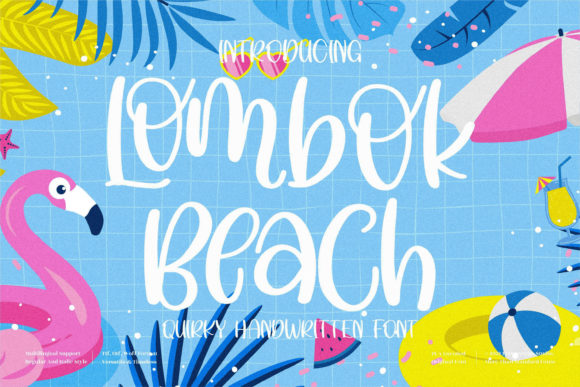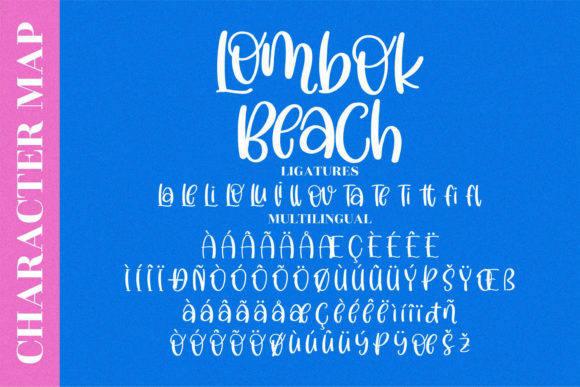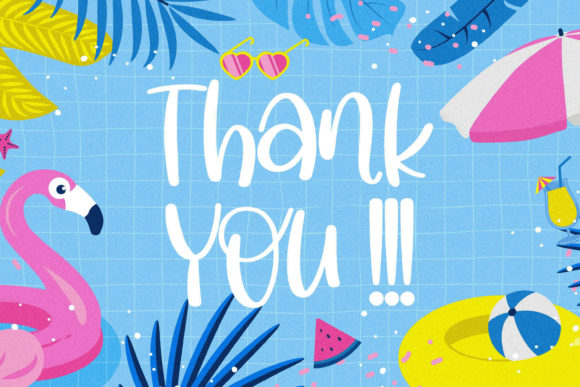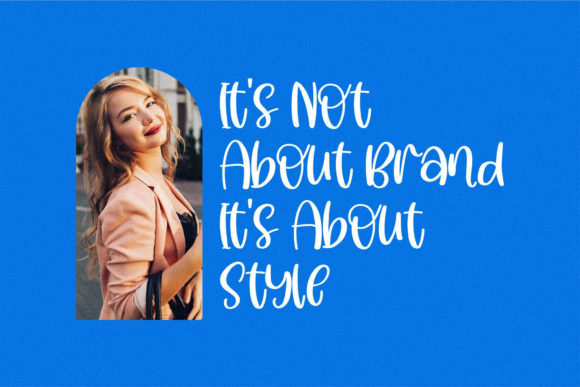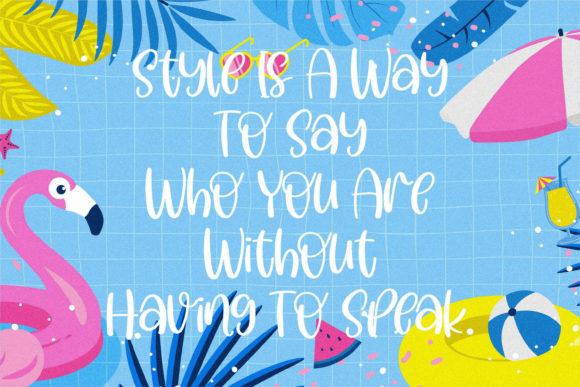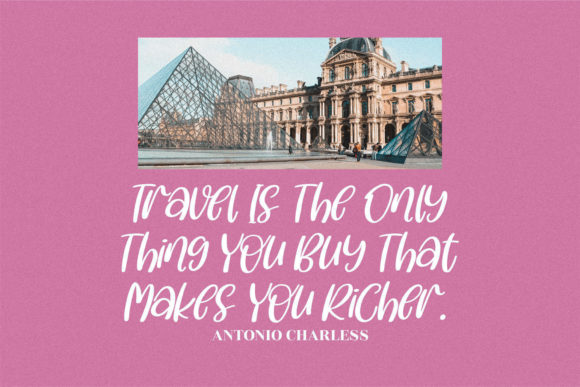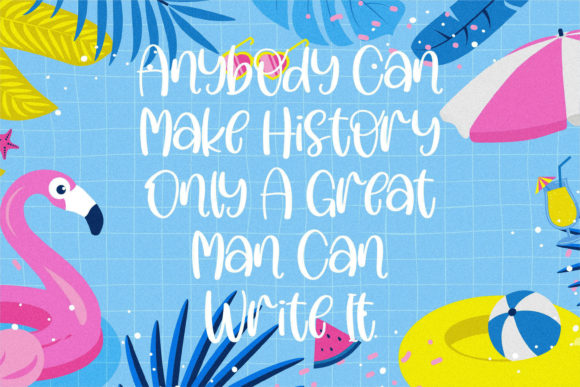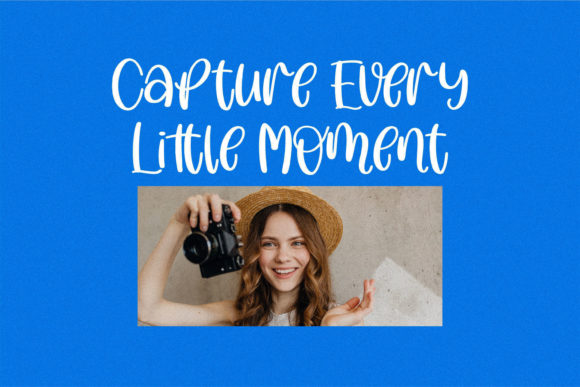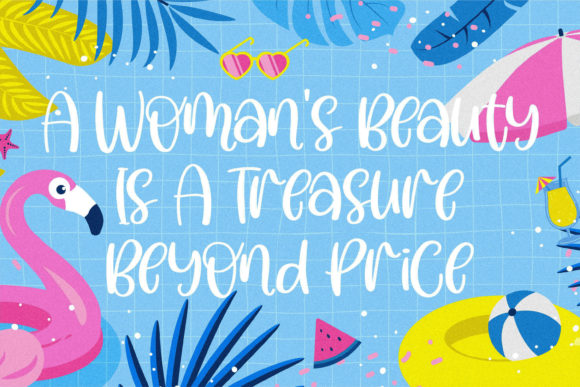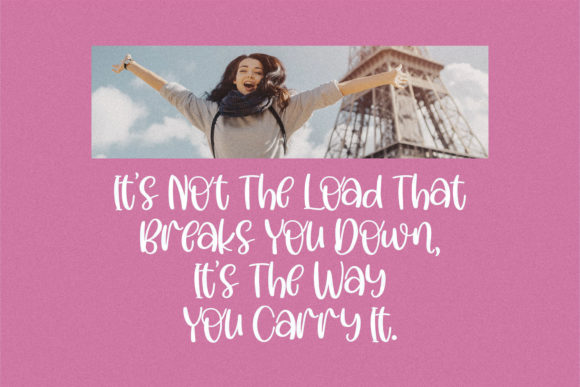
Lombok Beach Font
About Lombok Beach Font
Lombok Beach is a fun, jolly, quirky and round lettered handwritten font. Add this sweet font to each of the creations that require an exciting touch.